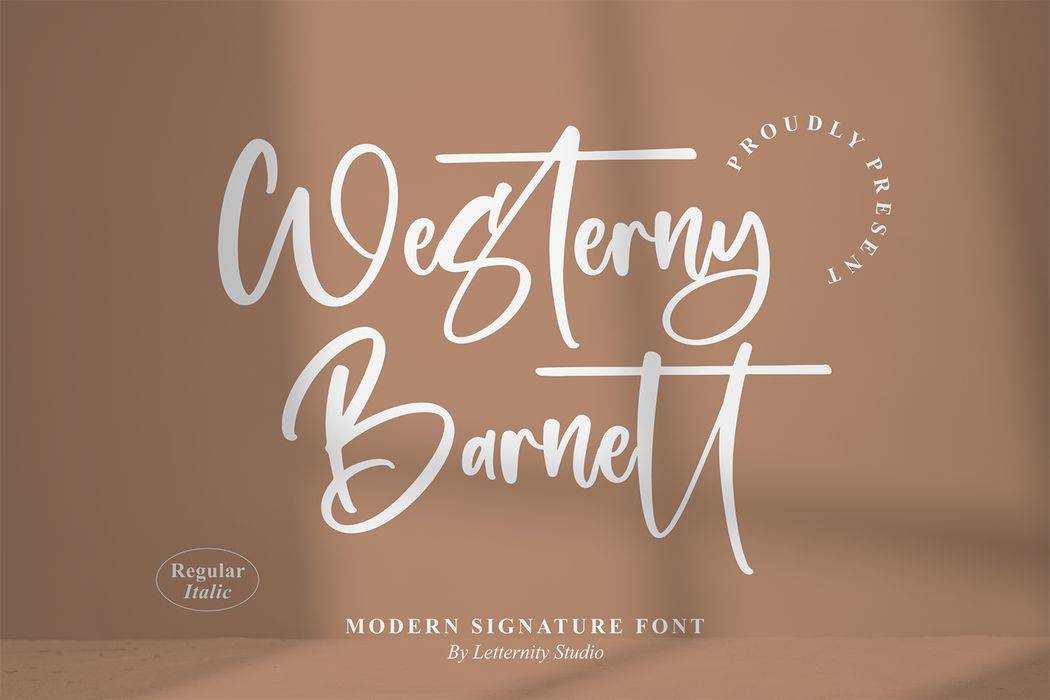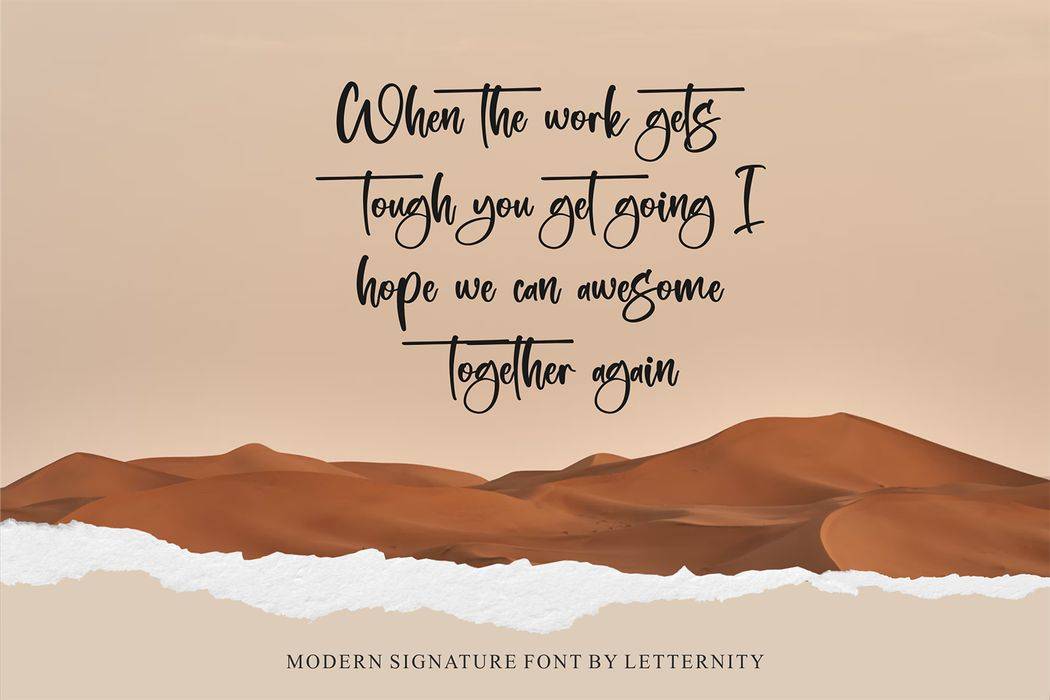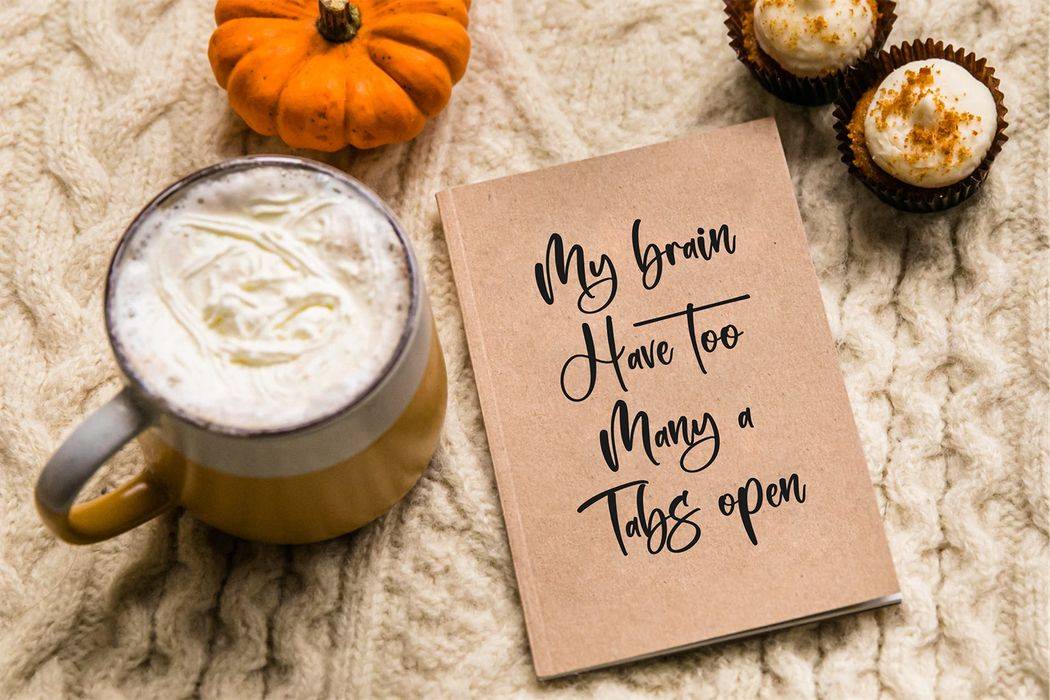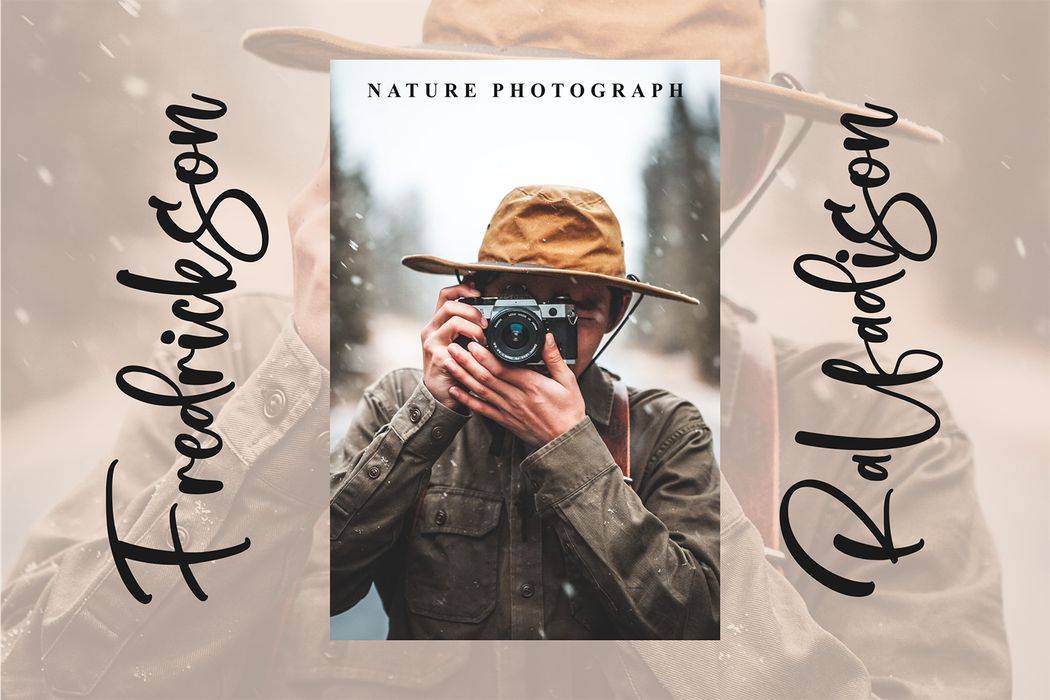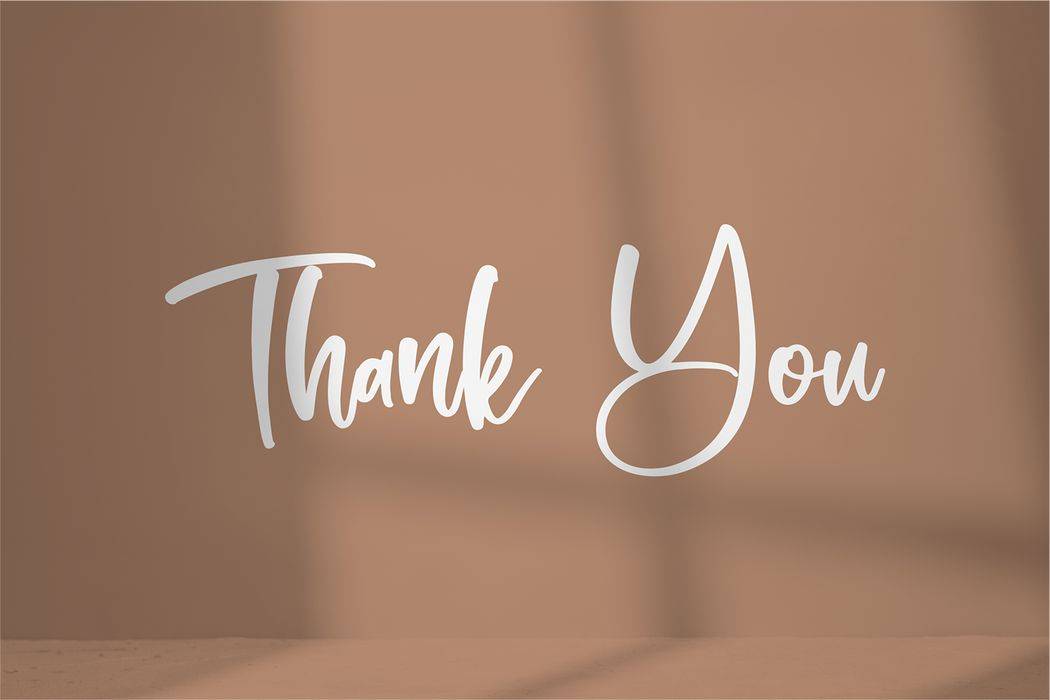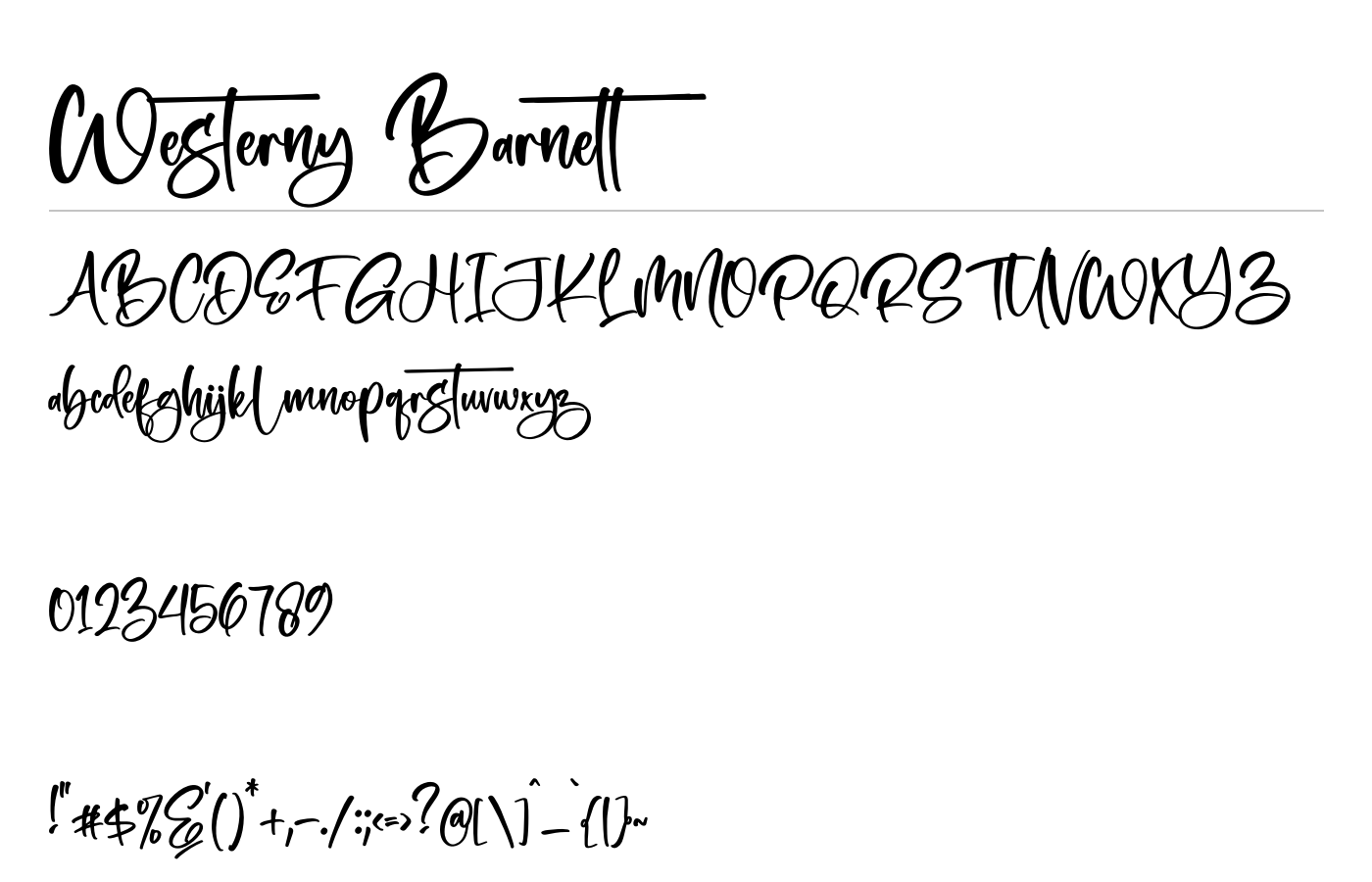
Westerny Barnett is a lively, handwritten script font that features fluid, connected strokes and a casual, playful personality. Its tall, slightly condensed letterforms with elegant swashes make it ideal for creative and personal branding, invitations, or stylish logos. This font works best in display use where a warm, friendly, and artistic touch is desired.
Westerny Barnett Font
About Westerny Barnett Font